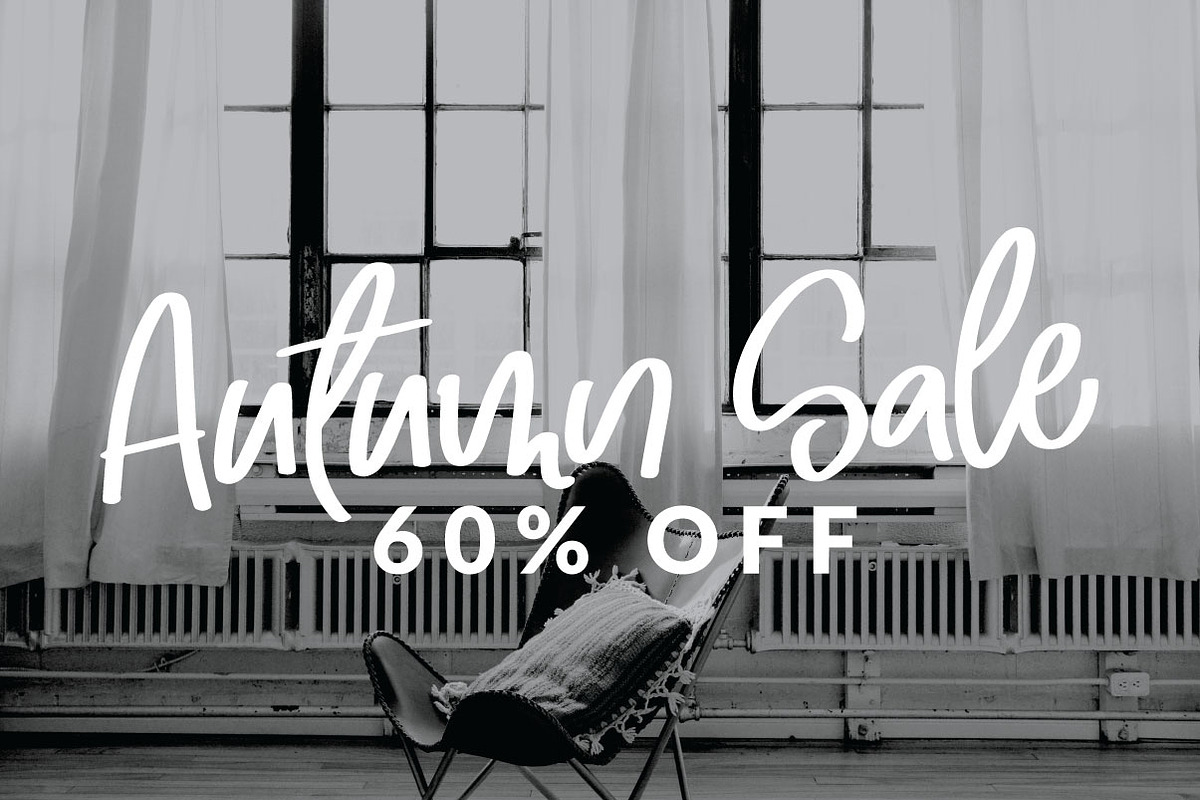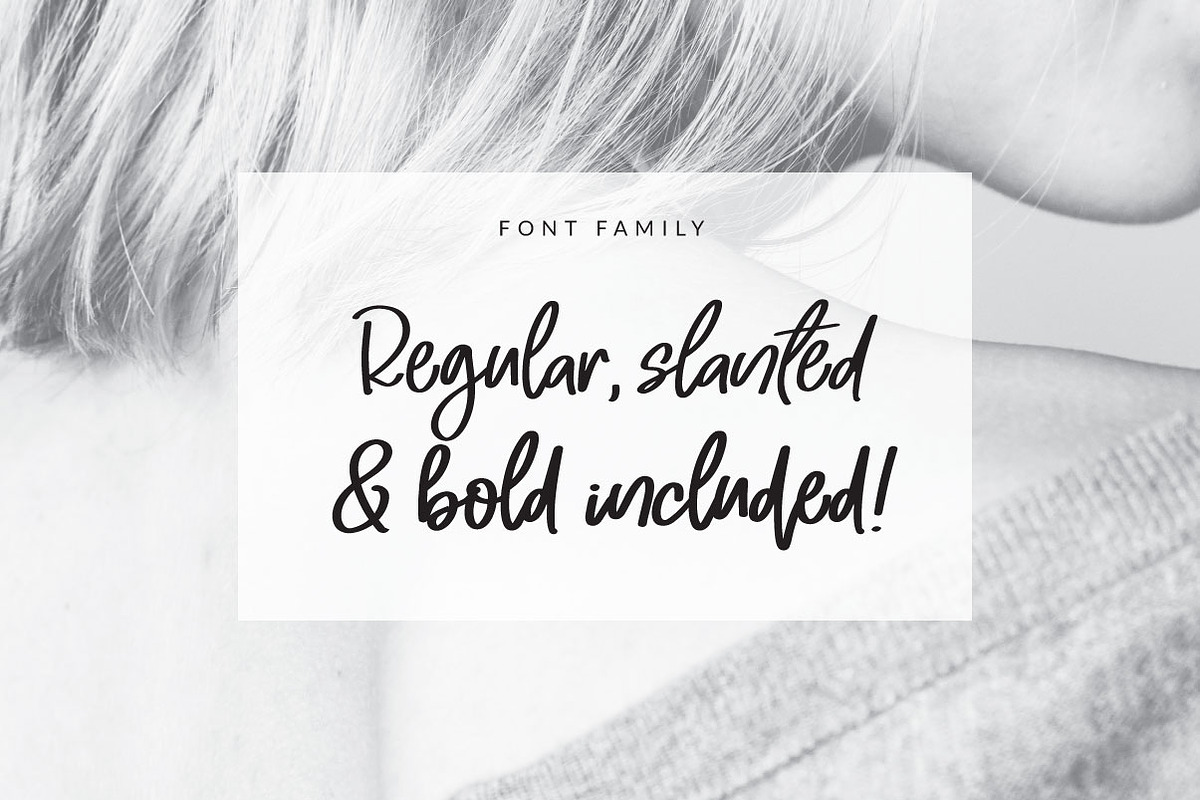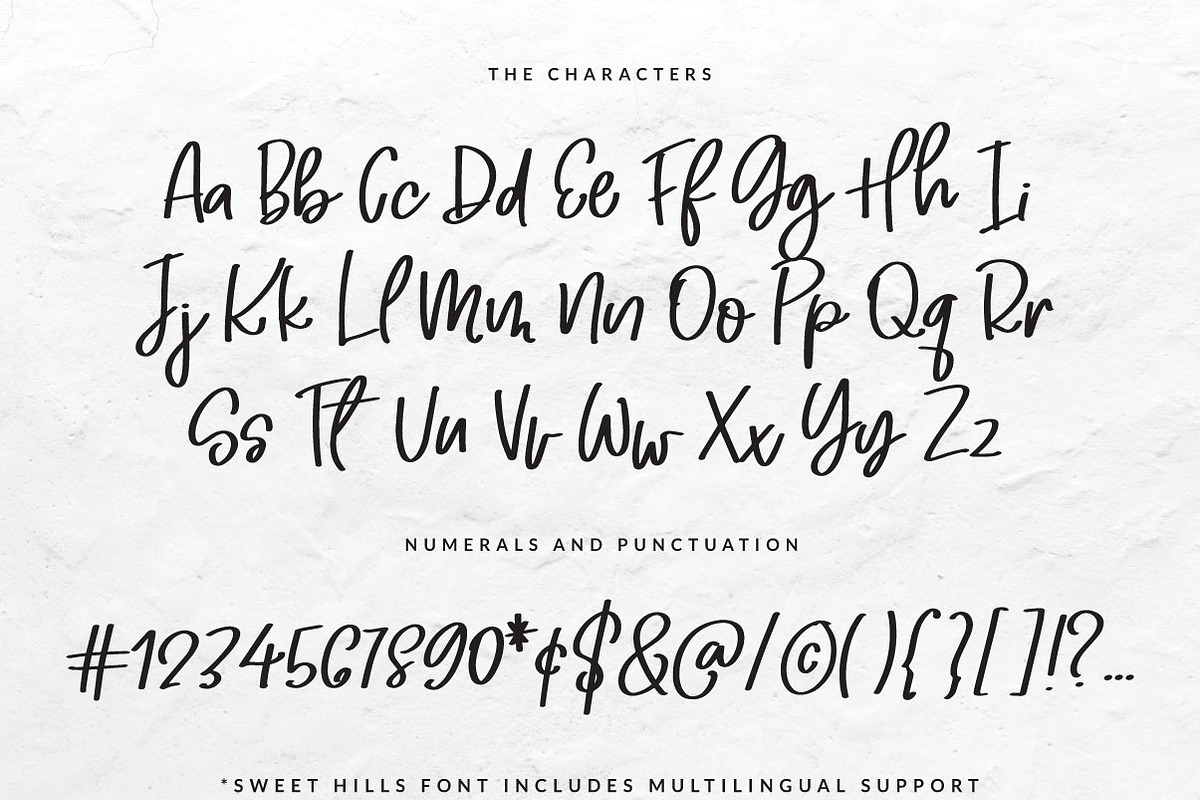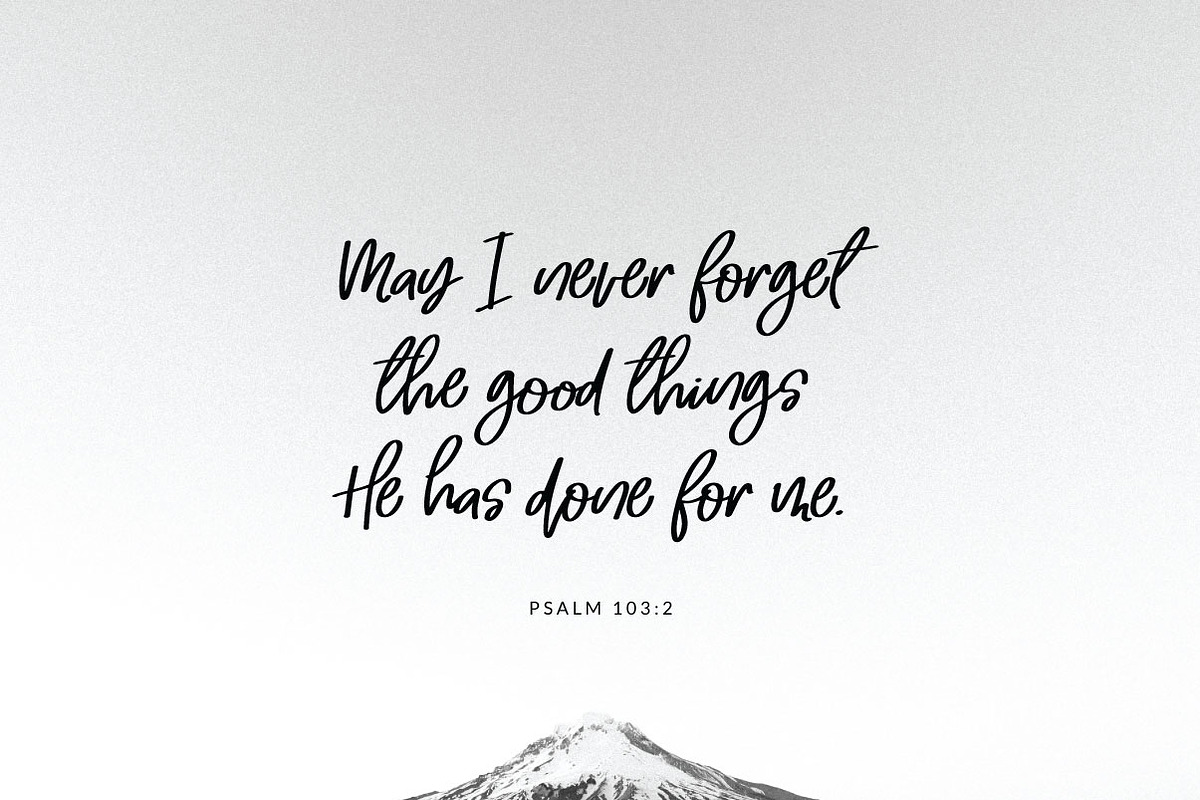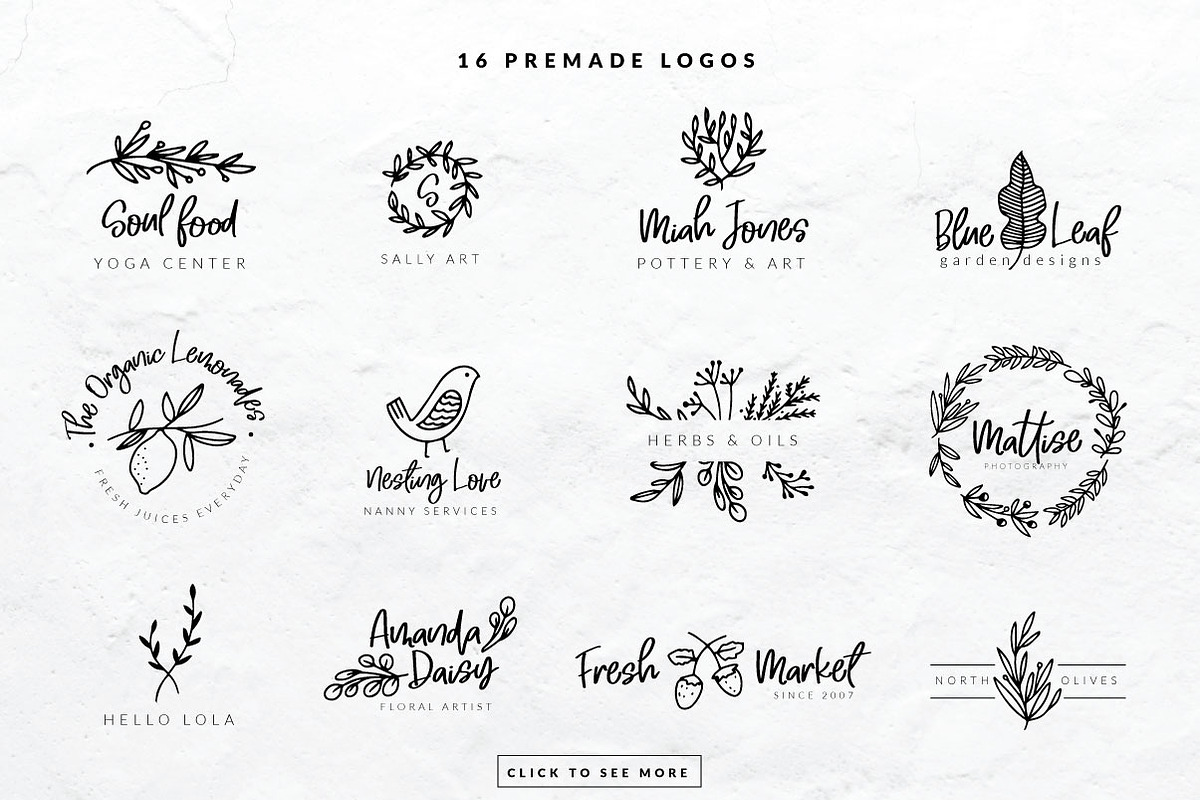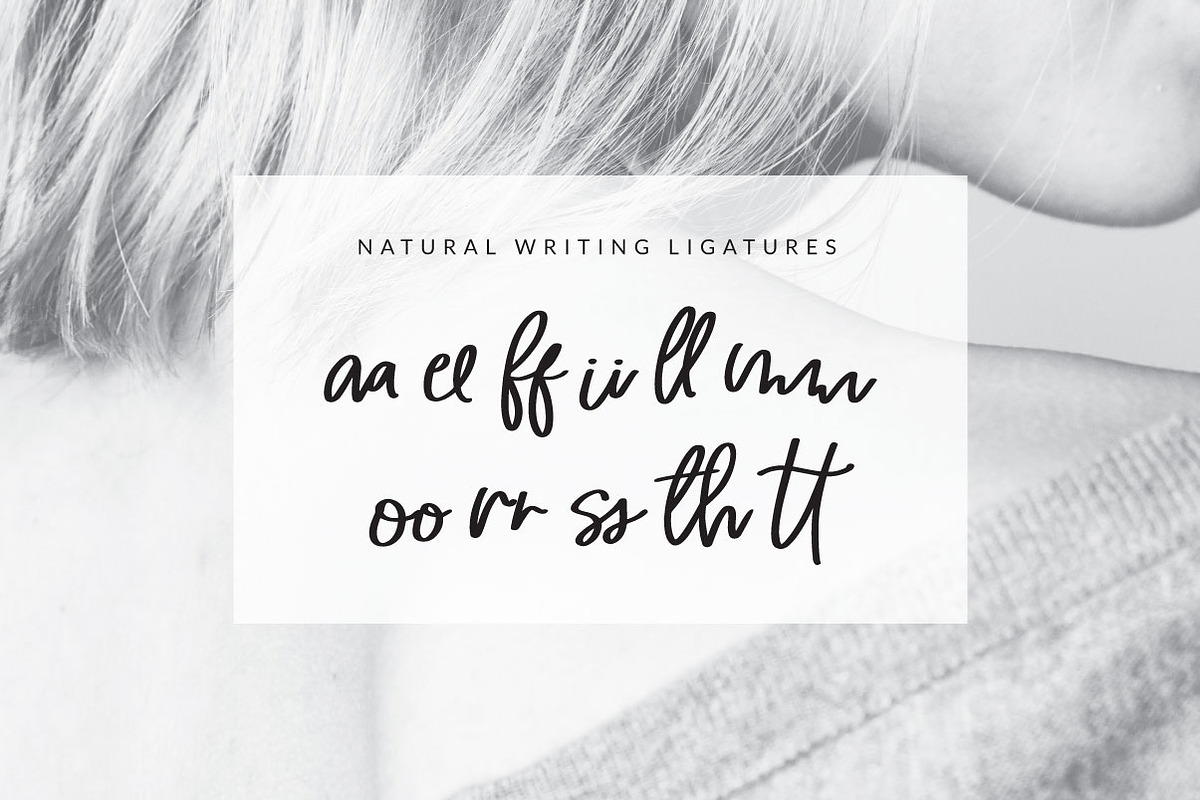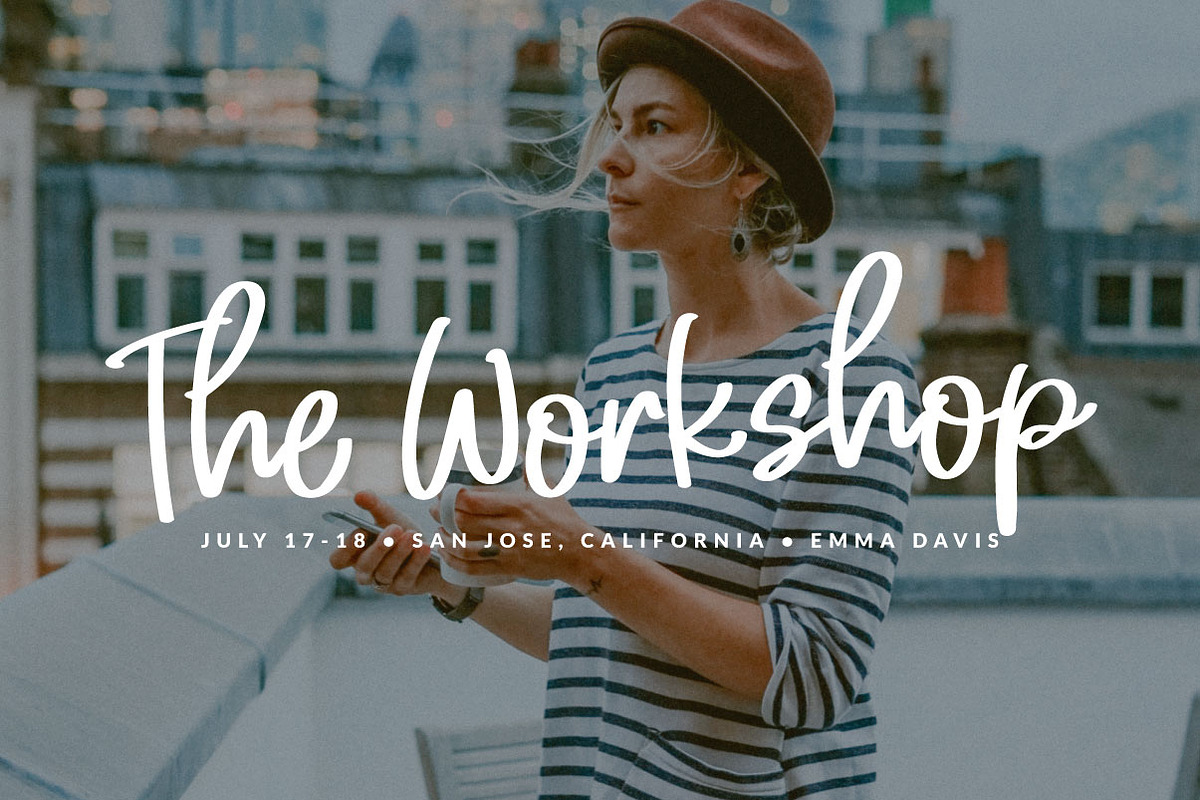
Sweet Hills Script Font + Dingbats
Hello there! I'm so excited to share with you my newest font: Sweet Hills. This font was designed with a natural and casual look in mind, kind of like the look you get in a written note. So, after tons of hand-style tests I finally got this awesome marker effect style.
I then started doing some trials using it in stationary samples, quotes, logos, blogs and websites and I knew I had to publish it, becoming one of my top favorites before engaging any kind of design project.
Sweet Hills also features double-letter ligatures to get an even more natural handwriting style. Additionally BOLD and Slanted styles are included.
Full upper and lowercase
Numerals and Punctuation (OpenType Standard)
Accents (Multi-lingual support)
Traditional Double Letter Ligature
Bonus font including Floral dingbat graphics
- I also included a cute Floral Dingbats font set with 52 flowers and branches drawings ready to embellish your texts or design projects.
- Sweet Hills Regular
- Sweet Hills Slanted
- Sweet Hills Bold
- Sweet Hills - Dingbats Dingbats